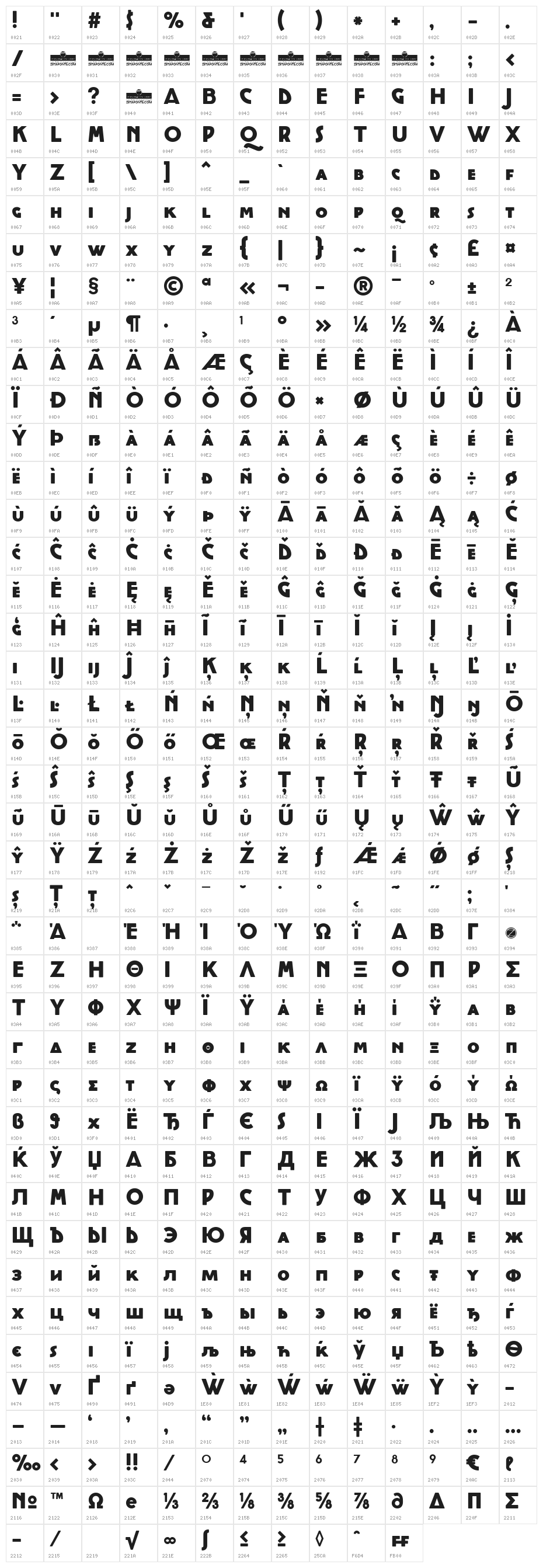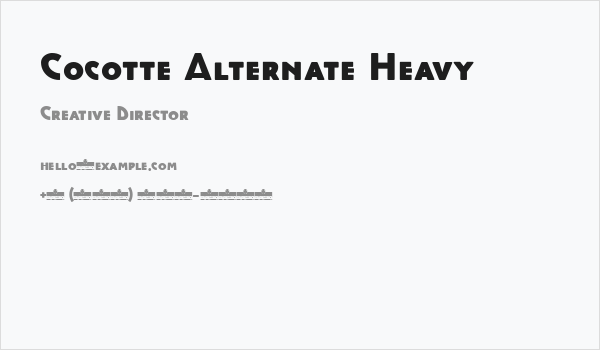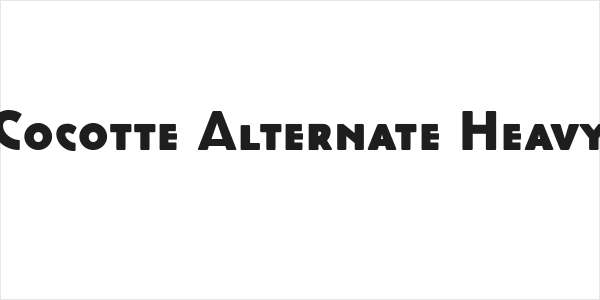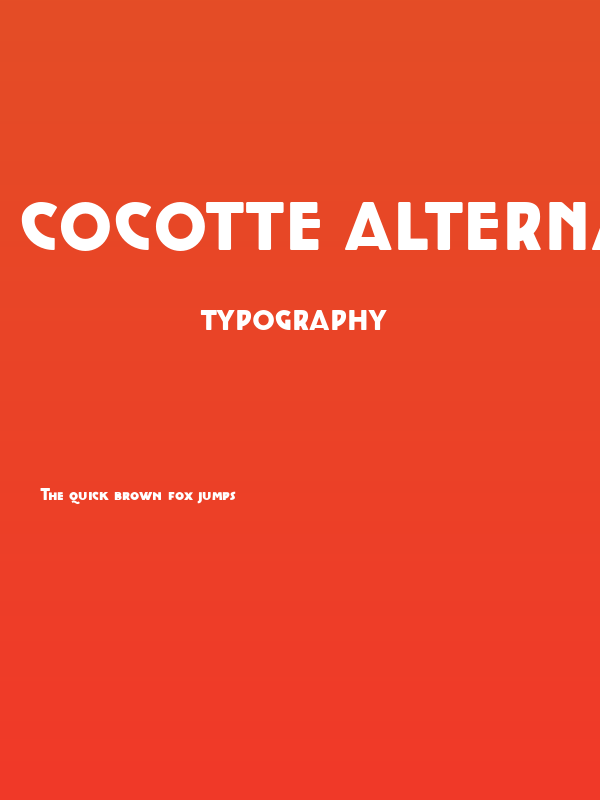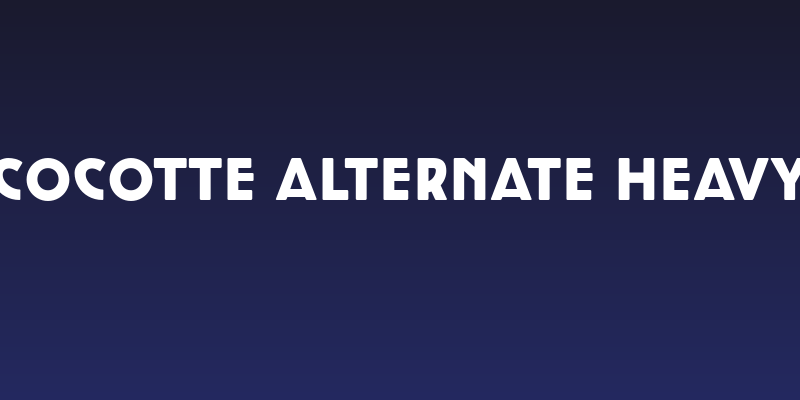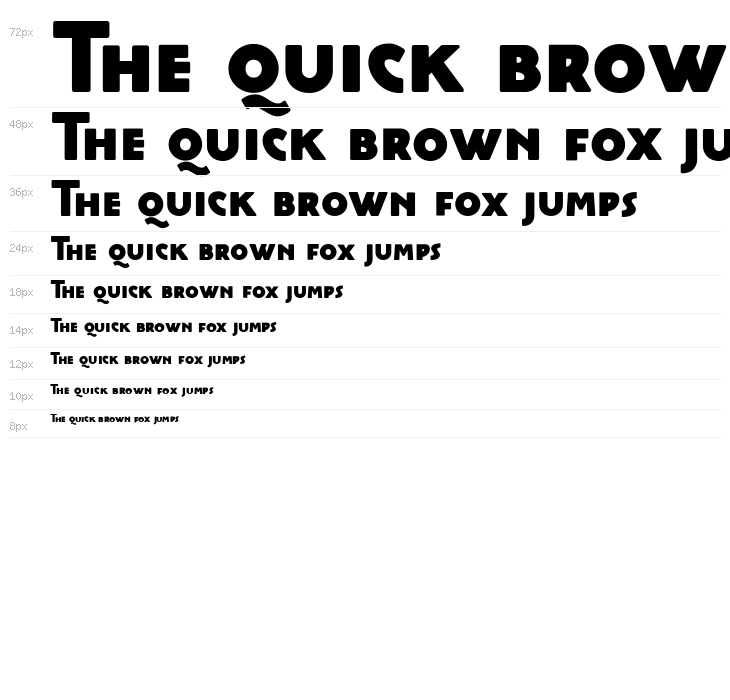
Cocotte Alternate Heavy Font
Cocotte Alternate Heavy Description
This typeface features bold, geometric letterforms with a modern and assertive appearance. The uppercase letters are characterized by their strong, wide strokes and minimal contrast, creating a powerful visual impact. The lowercase letters maintain the same boldness, ensuring consistency across text. The numerals are equally robust, complementing the overall design. Special characters are designed with the same geometric precision, making them stand out. This font is ideal for projects that require a strong, contemporary look, such as branding, advertising, and editorial design.
| Proposed Projects | Ideal for branding, advertising, editorial design, and any project requiring a strong, modern aesthetic. |